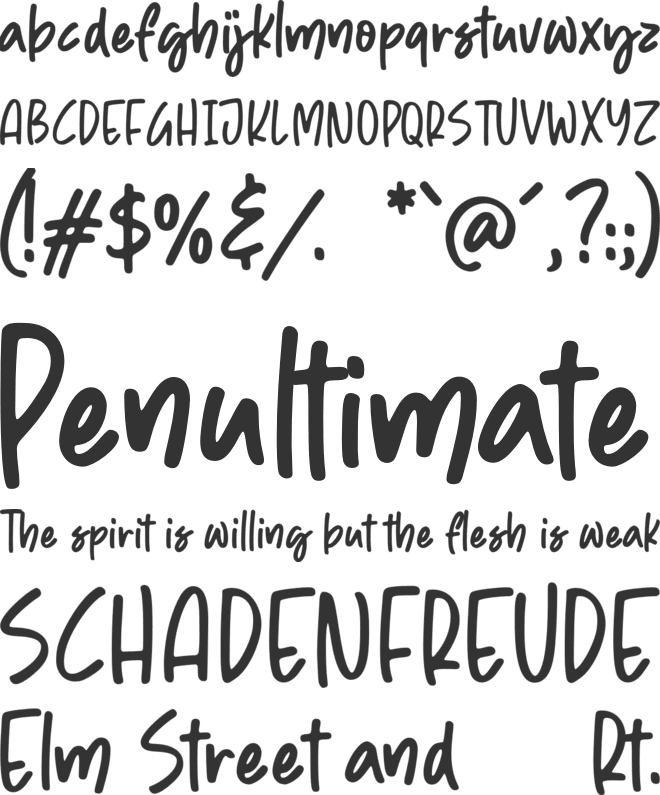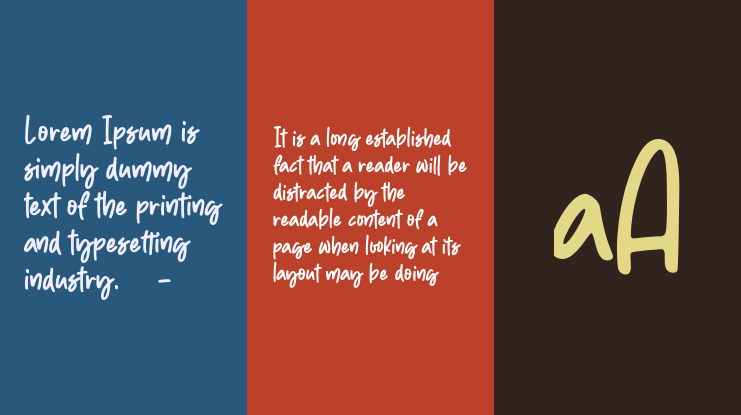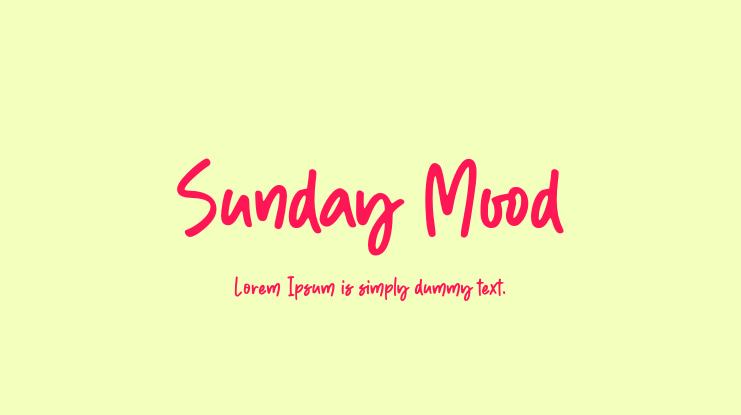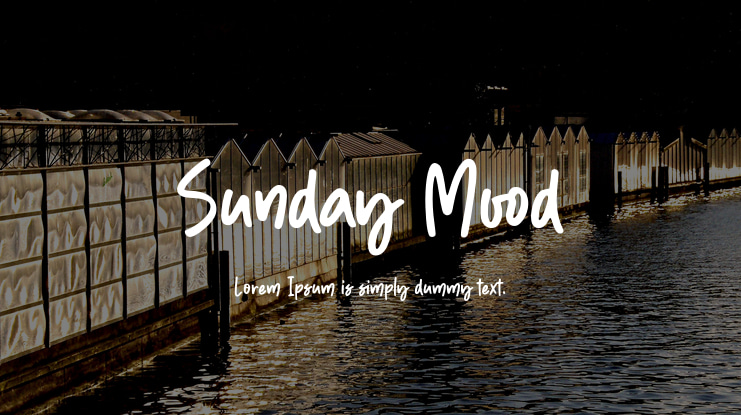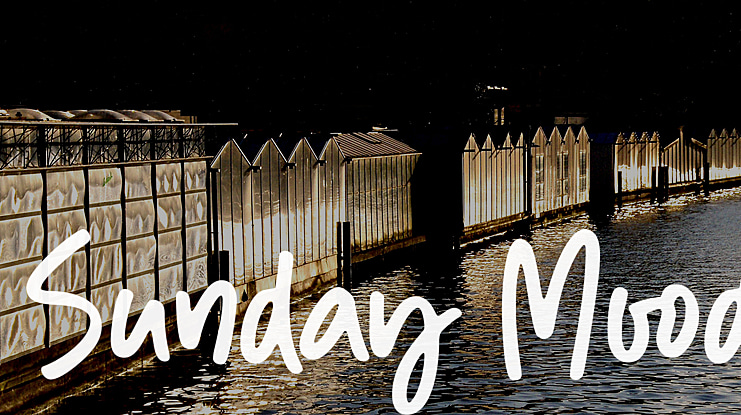
Sunday Mood Font
Annas Alam Yahya
It’s a fun and cheerful handwritten font display. This font is suitable for handwriting logos, T-shirts, merchandise, quotes, social media posts, advertising, and a lot more! Sunday Mood comes with an accent language. This purchase includes a TTF, OTF, & WOFF font file.